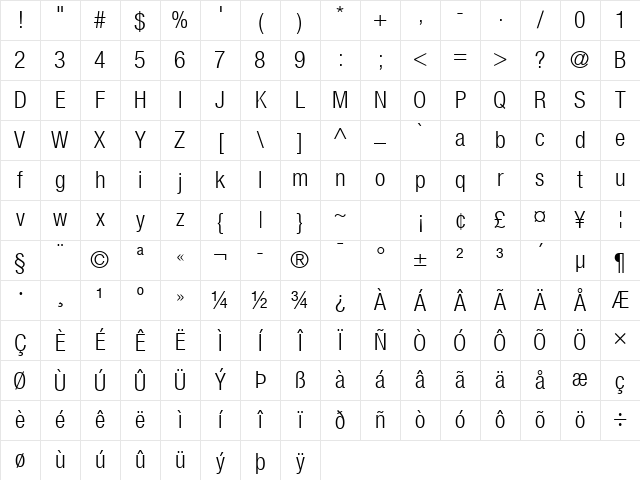
Helvetica Neue LT Com 47 Light Condensed
Style: 47 Light Condensed
Designer: Linotype Design Studio
Design Context for Helvetica Neue LT Com
Helvetica Neue LT Com is a composed and adaptable typeface that performs quietly and consistently across a wide range of design contexts. Its slender proportions lend an understated elegance to any composition. Its narrow stance lets it pack a punch even in space-constrained designs.